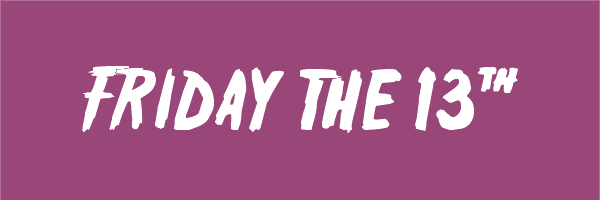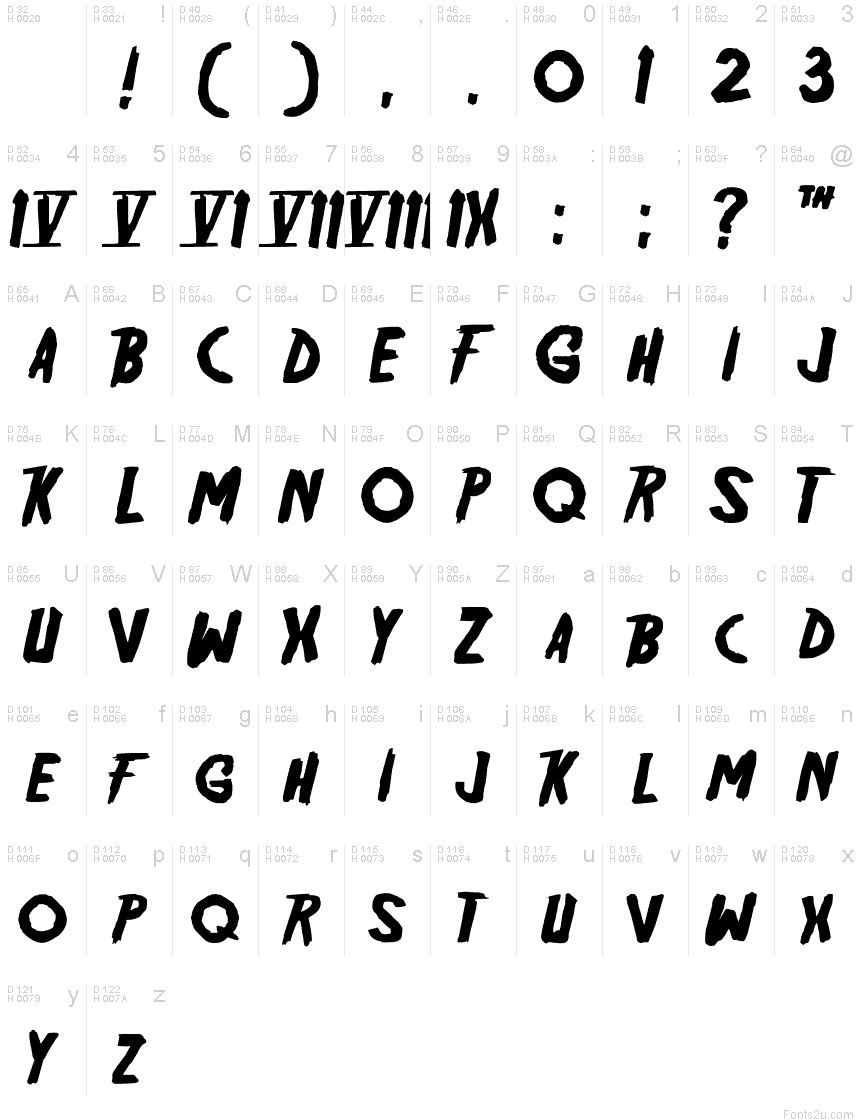
Friday 13 By Norfok Incredible Font Design.
That Has Totally Based On A Movie Whose Name Is Friday The 13Th.
For example, 2015 had a friday the 13th in february, march, and november; The font used for the film title in the friday the 13th movie poster is very similar to friday13 designed by thomas w.otto in 1999. It occurs when the 13th day of the month in the gregorian calendar falls on a friday, which happens at least once every year but can occur up to three times in the same year.